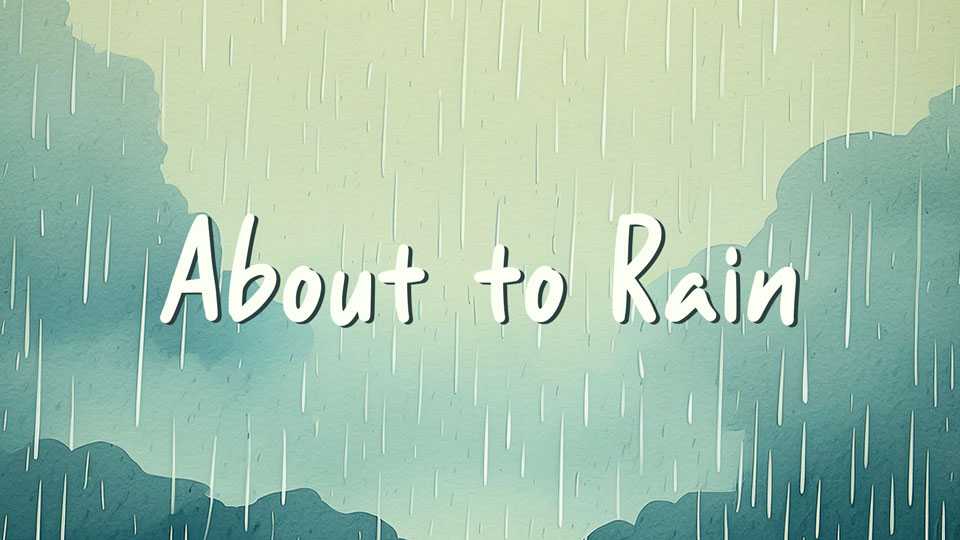
About to Rain Font › Fontesk – Download Grátis
Download About to Rain font, a simple and cute hand-drawn typeface perfect for adding a personal touch to your notes and journals.
Designer: Zuzulgo Studio